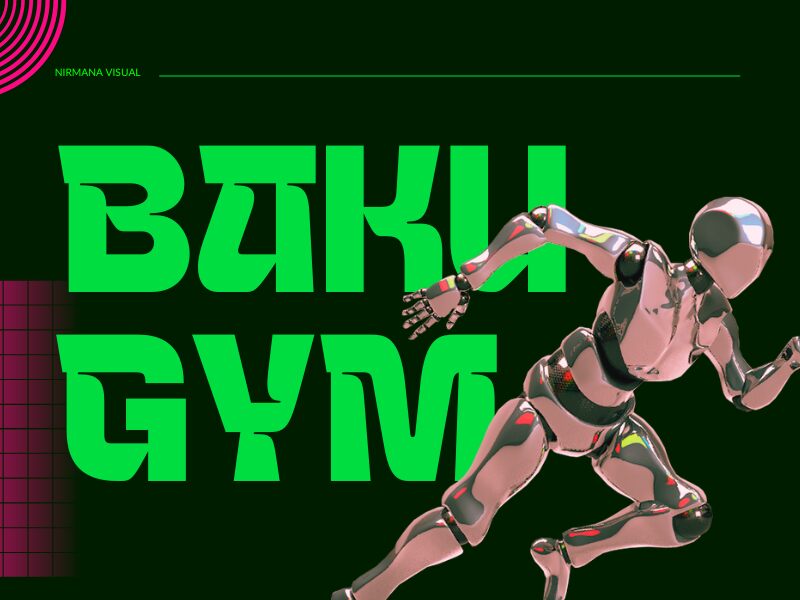
Baku Gym, crafted by Nirmana Visual, stands out with its bold assertion and striking silhouette. This display font exudes a robust personality, characterized by its commanding presence and energetic curves. Its structure combines playful yet potent elements, making it perfect for capturing attention in any design context.
Visually, Baku Gym conveys a sense of motion and vitality, ideal for branding in sports, fitness, or youthful endeavors. It's perfect for posters, advertisements, or any dynamic visual where a confident statement is required. Whether you’re creating an eye-catching logo or an engaging promotional material, Baku Gym’s distinct style ensures your message resonates with vigor and enthusiasm. Embrace its unique flair to elevate your creative projects to new heights.